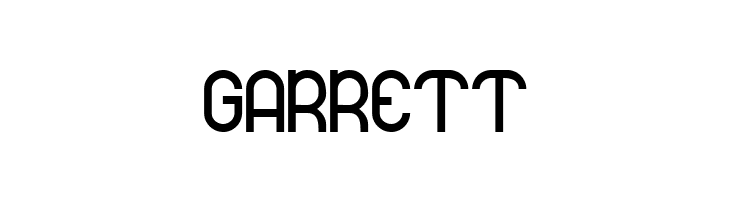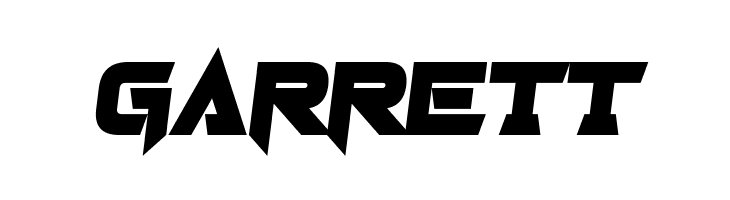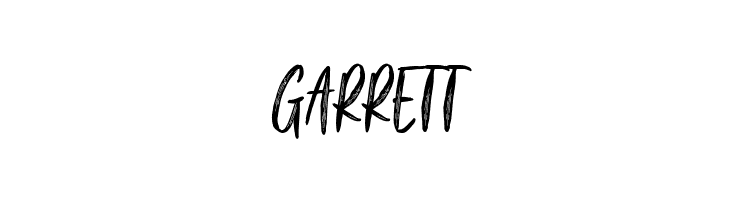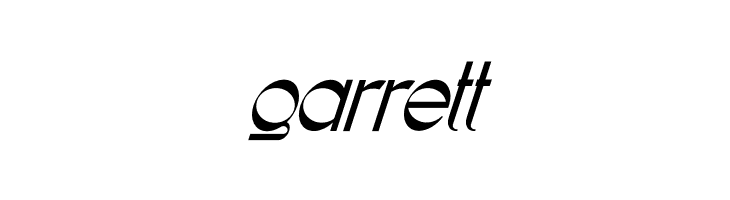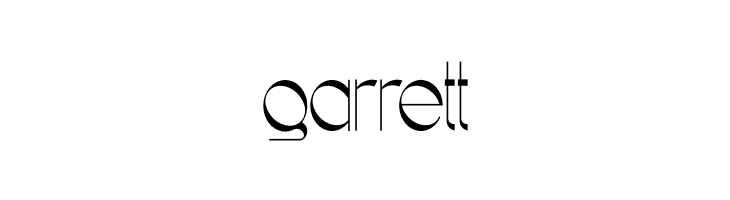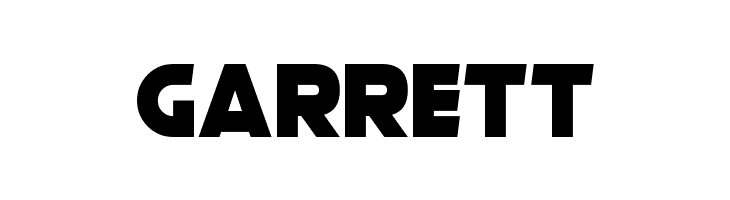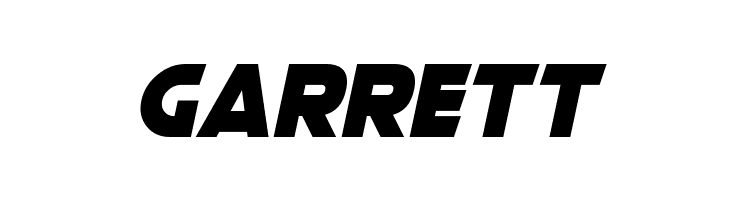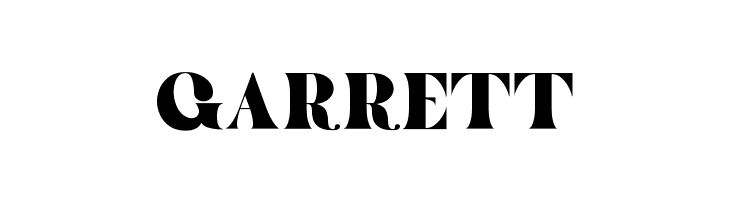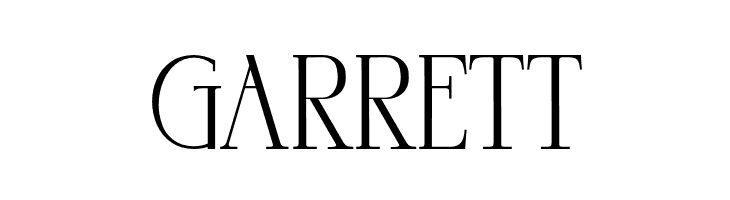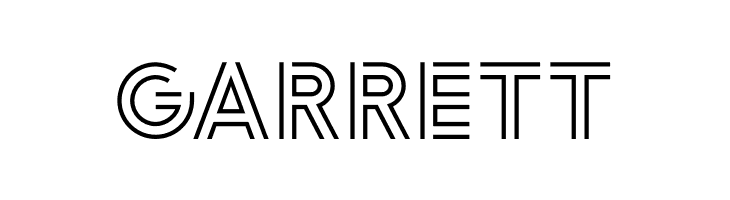
An elegant, flowing script font with artistic flourishes.
A modern geometric font with a blend of rounded and angular elements.
A bold, distressed font with a rugged, vintage aesthetic.
A dynamic handwritten font with brush-like strokes and an artistic flair.
A modern, geometric font with clean lines and a bold presence.
A modern, bold italic font with sleek, geometric lines and a dynamic style.
A sleek, modern font with geometric elements and thin strokes.
A sleek, modern italic font with elongated characters and a dynamic style.
A bold, expressive brush-style font with dynamic, artistic strokes.
A playful, hand-drawn font with wavy lines and a quirky, energetic style.
A classic serif font with high contrast and elegant, narrow characters.
A playful, rounded font with smooth curves and uniform strokes.
A playful, rounded font with bold, smooth curves and consistent spacing.
A bold, retro-inspired font with high contrast and playful flourishes.
A modern, geometric font with double-line strokes and art deco influences.
A bold, brush-style font with an energetic and handcrafted appearance.
A bold, playful font with rounded, outlined characters and a whimsical style.
A clean, geometric font with rounded edges and consistent line weight.
A bold, angular font with a futuristic and aggressive style.
A bold, brush-style handwritten font with an expressive and artistic flair.
A lively, cursive script font with elegant connections and a natural handwriting feel.
A flowing, cursive script font with elegant loops and swashes.
A dynamic and fluid script font with elegant, flowing letterforms.
A graceful and elegant script font with flowing, connected strokes.
A bold, grungy font with a distressed, hand-drawn appearance.
A bold, retro-inspired font with layered outlines and a playful, dynamic style.
A bold, playful font with exaggerated curves and high contrast, perfect for attention-grabbing designs.
A bold, modern font with tall, narrow characters and elegant style.
A tall, narrow font with high contrast and elegant style.
A bold, dynamic font with a slightly condensed and modern style.
A sleek, modern font with elongated, narrow letterforms and high contrast strokes.
An ultra-thin, modern font with tall, narrow letterforms.
A bold, geometric font with a modern and impactful style.
A bold, italic font with geometric shapes and a dynamic, modern style.